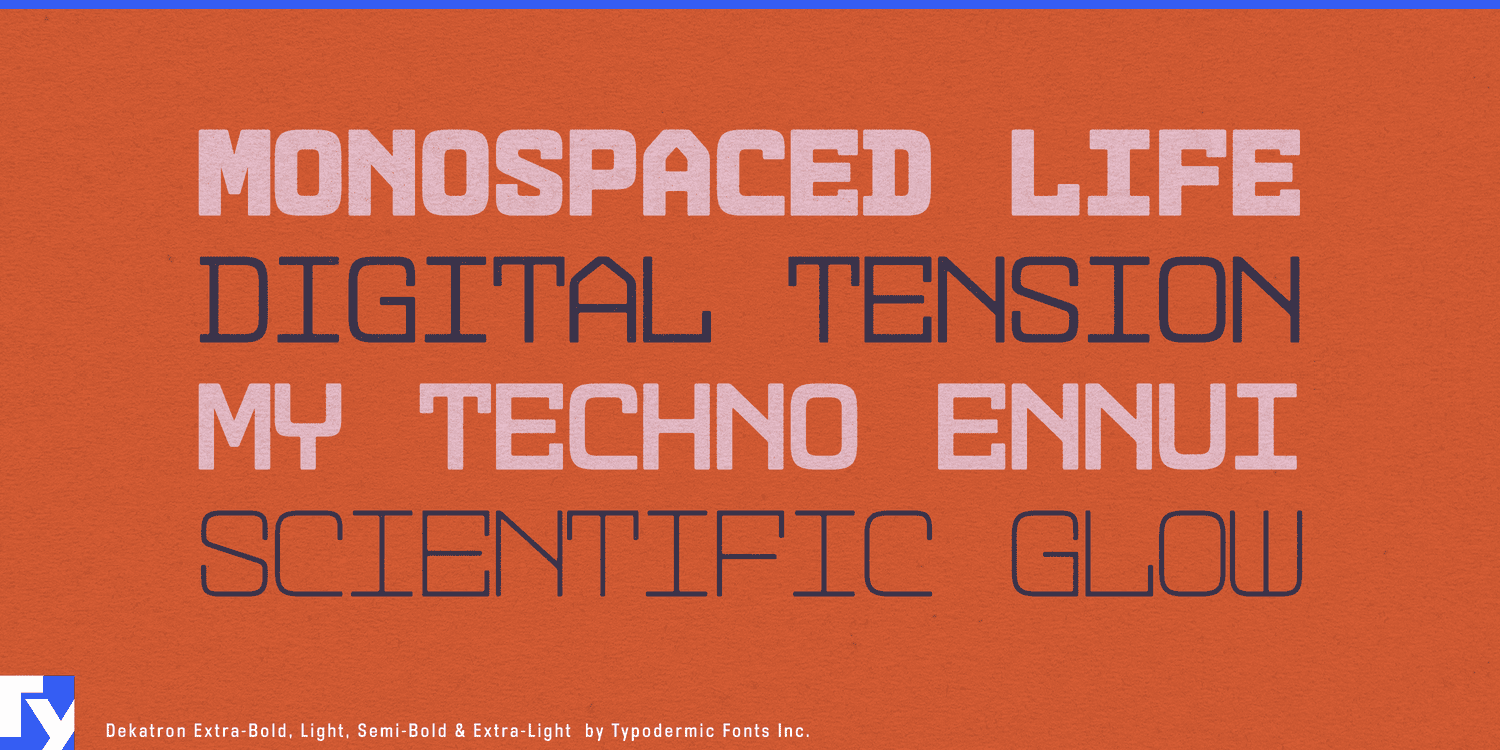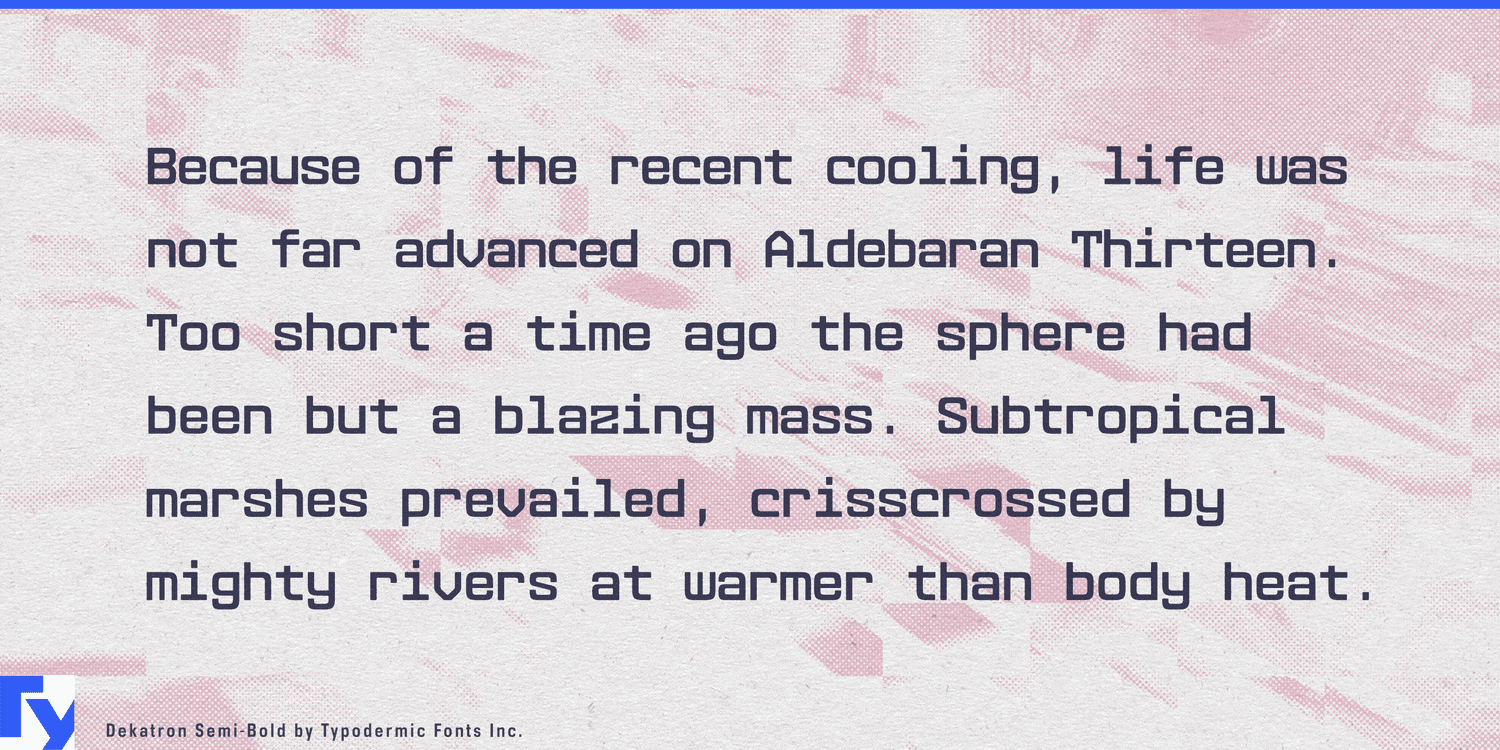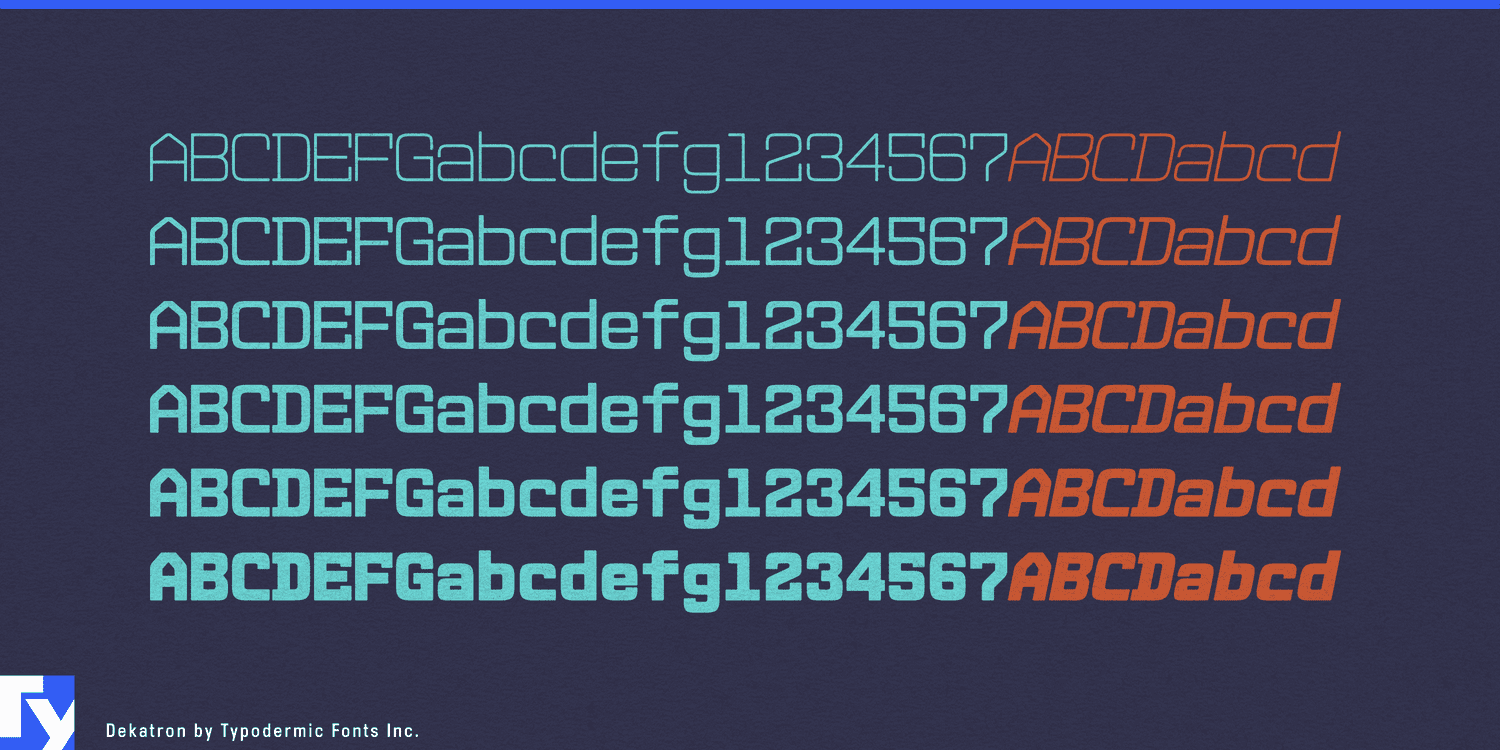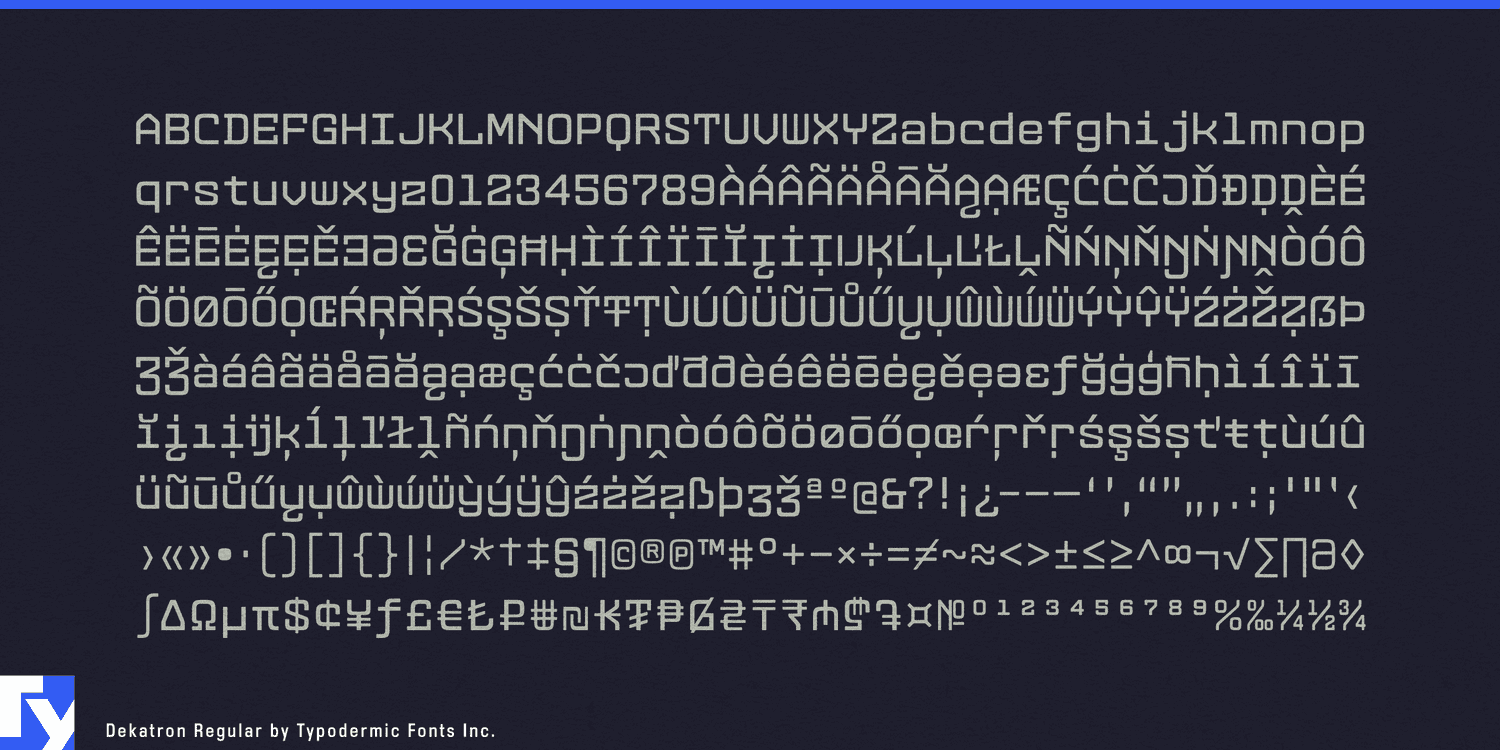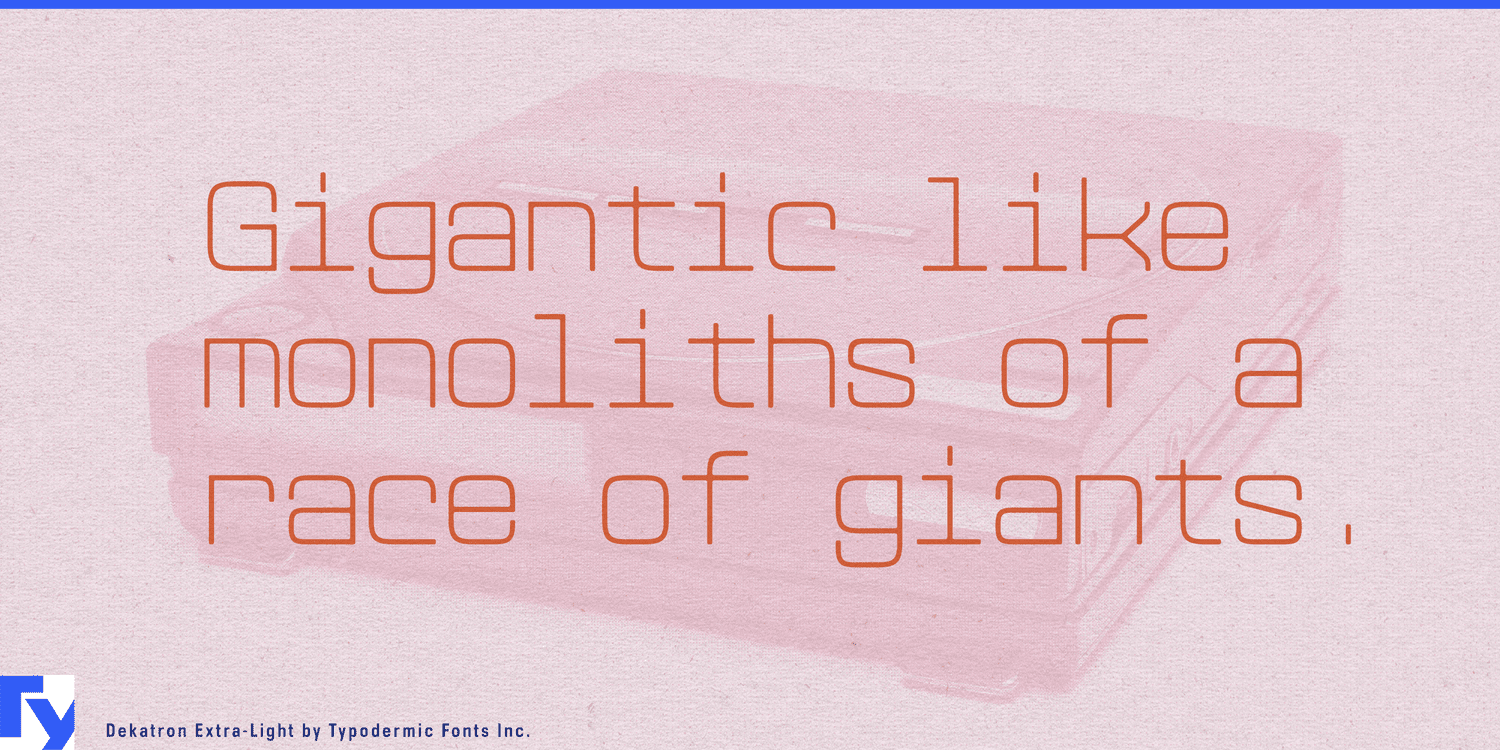
About Dekatron
Dekatron: Where precision meets innovation in the realm of typography. This monospaced masterpiece from Typodermic Fonts doesn’t just nod to the future—it’s already there, waiting for the rest of design to catch up. With its squarish…